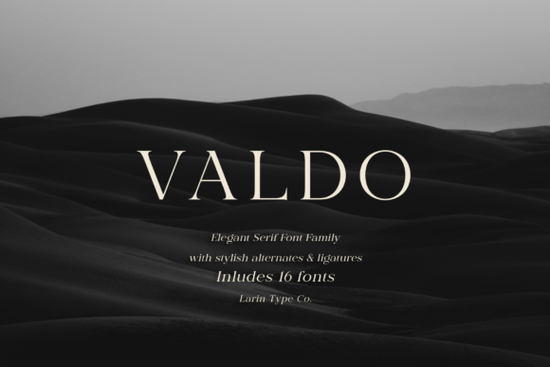
If you're working on a design that calls for timeless elegance with a modern edge, Valdo Font might be exactly what you need. This serif typeface blends high contrast strokes with clean lines, making it both stylish and highly legible ideal for everything from fashion branding to editorial layouts. Whether you’re designing a luxury product label, a magazine spread, or a boutique logo, Valdo offers the versatility and refinement to match your vision.
What sets Valdo apart is its thoughtful range: eight weights in both upright and italic styles, from delicate Thin to commanding Extra Bold. That kind of depth lets you create visual hierarchy without switching fonts. Need subtle body text? Go Light or Regular. Want bold headlines that pop? Try Bold or Black. And because it’s PUA encoded, accessing special characters, swashes, and ligatures is seamless no digging through glyph panels required.
Why choose Valdo for fashion and lifestyle projects?
Serif fonts often carry a sense of heritage and sophistication, but Valdo updates that tradition with crisp geometry and sharp contrasts. It feels contemporary without losing readability critical when your audience might view your design on a phone screen or a printed poster. For print-on-demand sellers creating apparel tags, packaging, or promotional banners, this balance matters. You want something that looks intentional and premium, not dated or overly ornate.
Compare it to other versatile serifs like Rusilla, which leans more calligraphic, or Agerola, known for its architectural precision. Valdo sits comfortably between classic and current, making it adaptable across industries from beauty brands to book publishers.
How does Valdo handle real-world design tasks?
Here’s where its practicality shines:
- Logos & branding: The extra-bold weights give strong presence, while thin variants add finesse for submarks or taglines.
- Editorial use: Magazines and lookbooks benefit from its clear letterforms even in smaller sizes.
- Packaging: High contrast helps text stand out against patterned or textured backgrounds.
- Digital ads: Clean lines render well on screens, avoiding the blur that plagues overly decorative fonts.
Unlike distressed or grunge-style typefaces such as Sporty Tee, Valdo maintains polish. And while display fonts like Golden Batch excel in ornamental roles, Valdo works just as well in body copy making it a true workhorse.
Technical perks that save time
Because Valdo is PUA (Private Use Area) encoded, all alternate glyphs and ligatures are mapped to standard keys in design software that supports OpenType features like Adobe Illustrator, Photoshop, or Affinity apps. That means you can type normally and still access flourishes like discretionary ligatures or stylistic alternates through your font menu, rather than hunting through character maps.
This is especially helpful for small business owners or solo creators who aren’t typography experts but still want professional-looking results. No plugins, no workarounds just intuitive access to the full character set.
Who should consider Valdo?
This font suits creators who value both aesthetics and function:
- Fashion designers crafting lookbook typography or hang tags
- Print-on-demand sellers building cohesive brand identities across mugs, tees, and posters
- Indie authors designing book covers that need shelf appeal
- Small studios developing client assets that must feel elevated yet accessible
If your project leans minimalist, vintage, or editorial but still needs warmth and personality Valdo delivers without overwhelming.
- ✅ Test readability at your intended size especially in Thin or Light weights
- ✅ Pair with a neutral sans-serif (like Montserrat or Lato) for balanced layouts
And if you’re exploring similar options, take a look at other uses of Valdo in real projects to see how it performs in context. Sometimes seeing it in action is the best way to know if it fits your style.